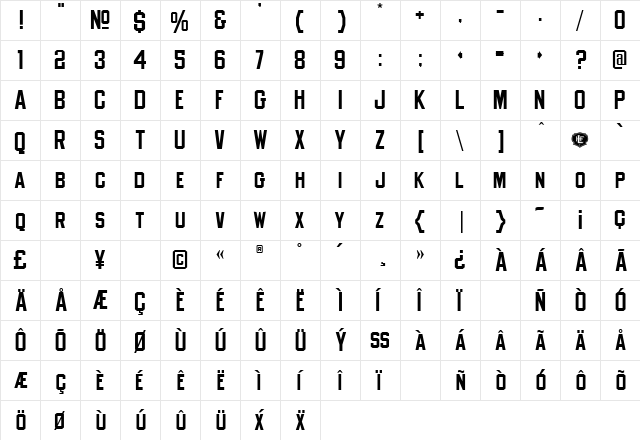
LHF Old Block CondMed Regular
Design Context for LHF Old Block CondMed Typeface
LHF Old Block CondMed takes a measured approach to typography — its balanced proportions and neutral character make it a reliable workhorse for both digital and print work. The condensed width makes it efficient for tight spaces without sacrificing legibility.